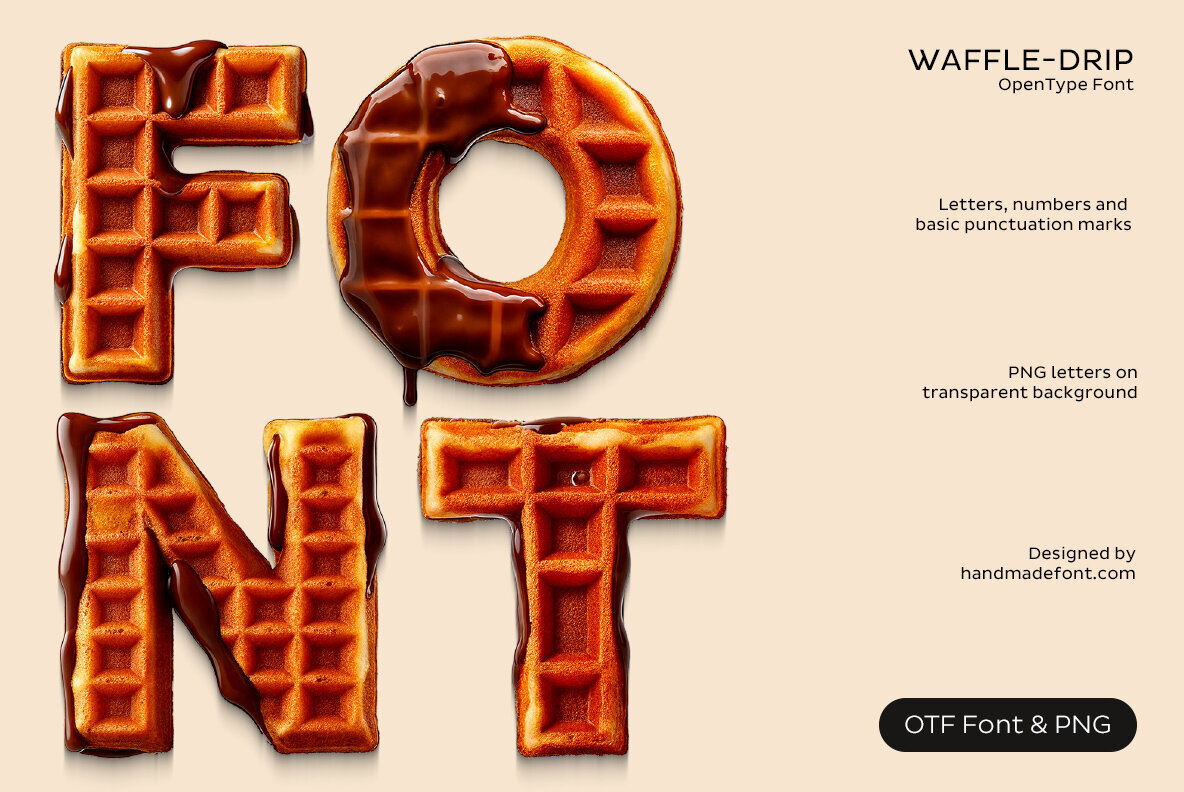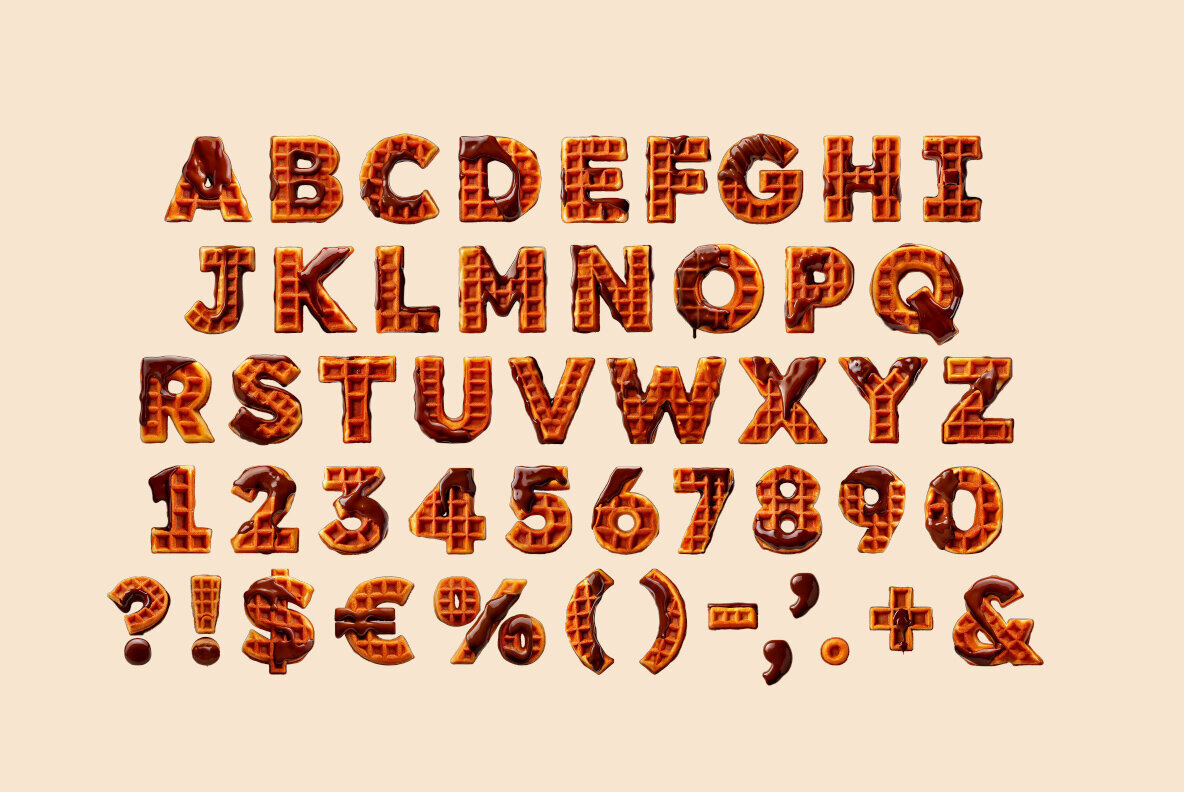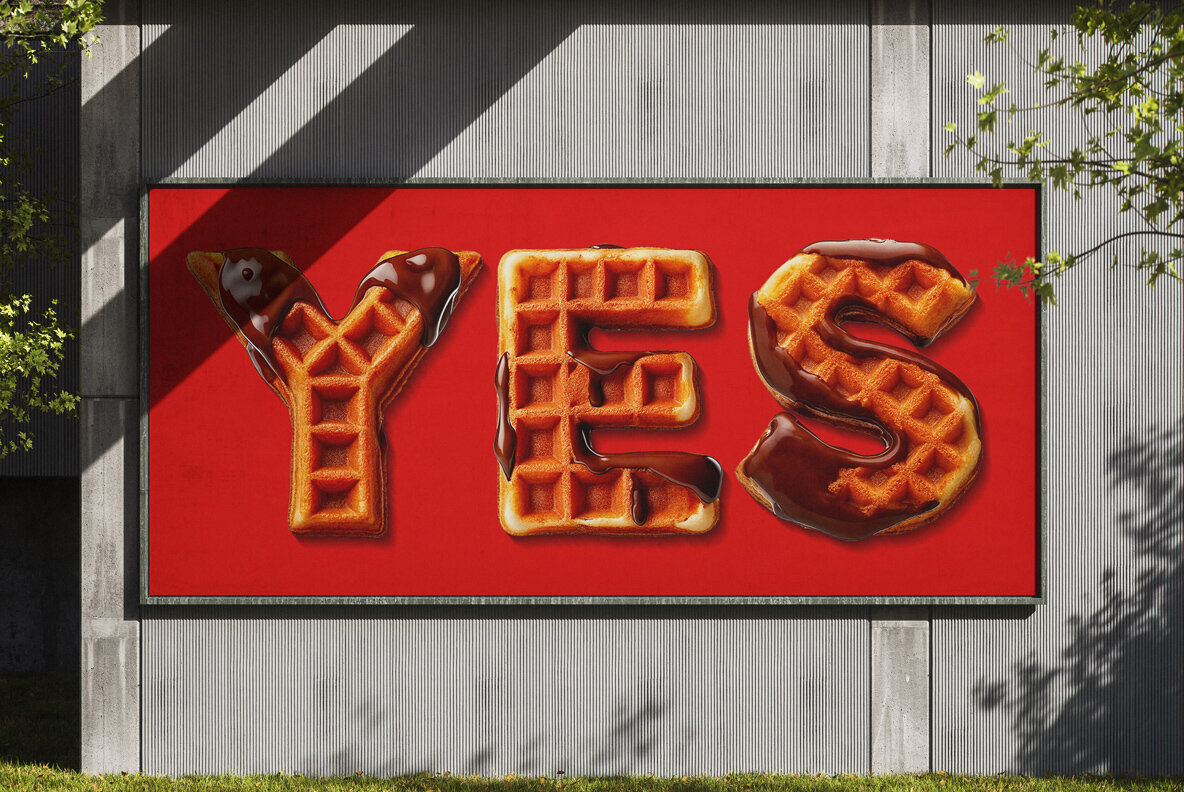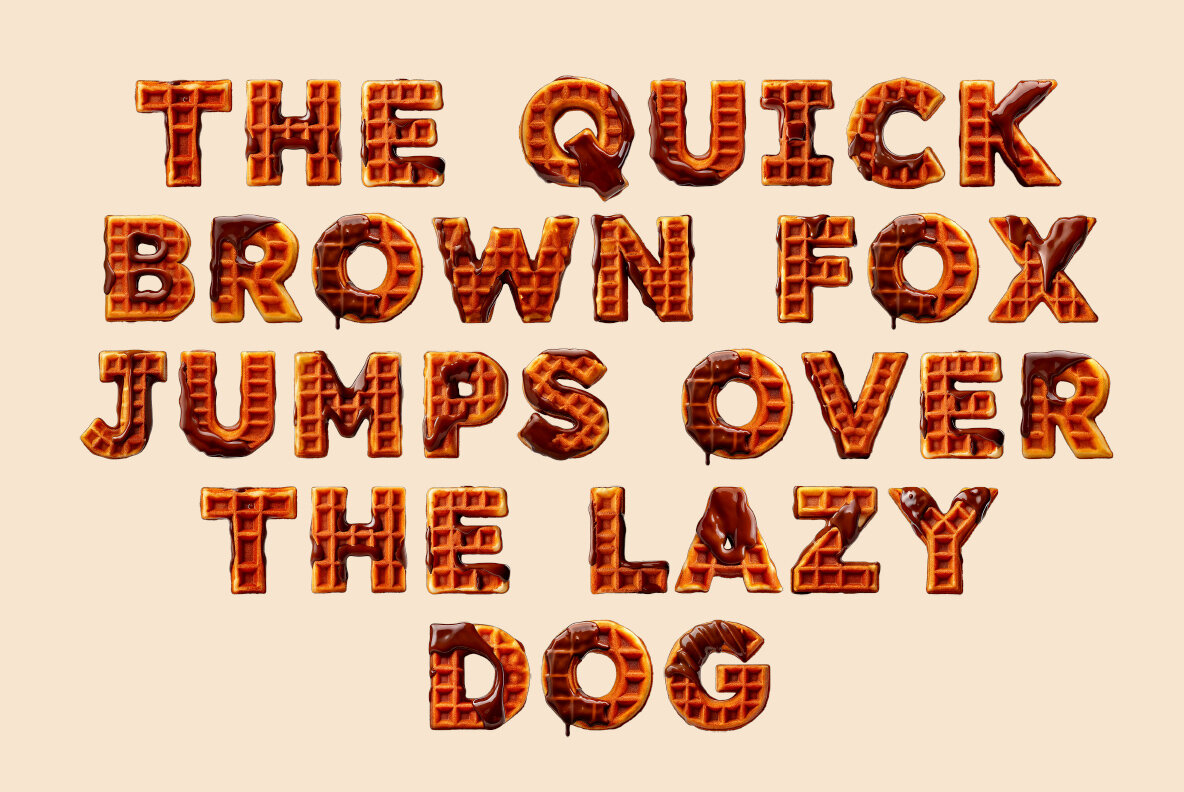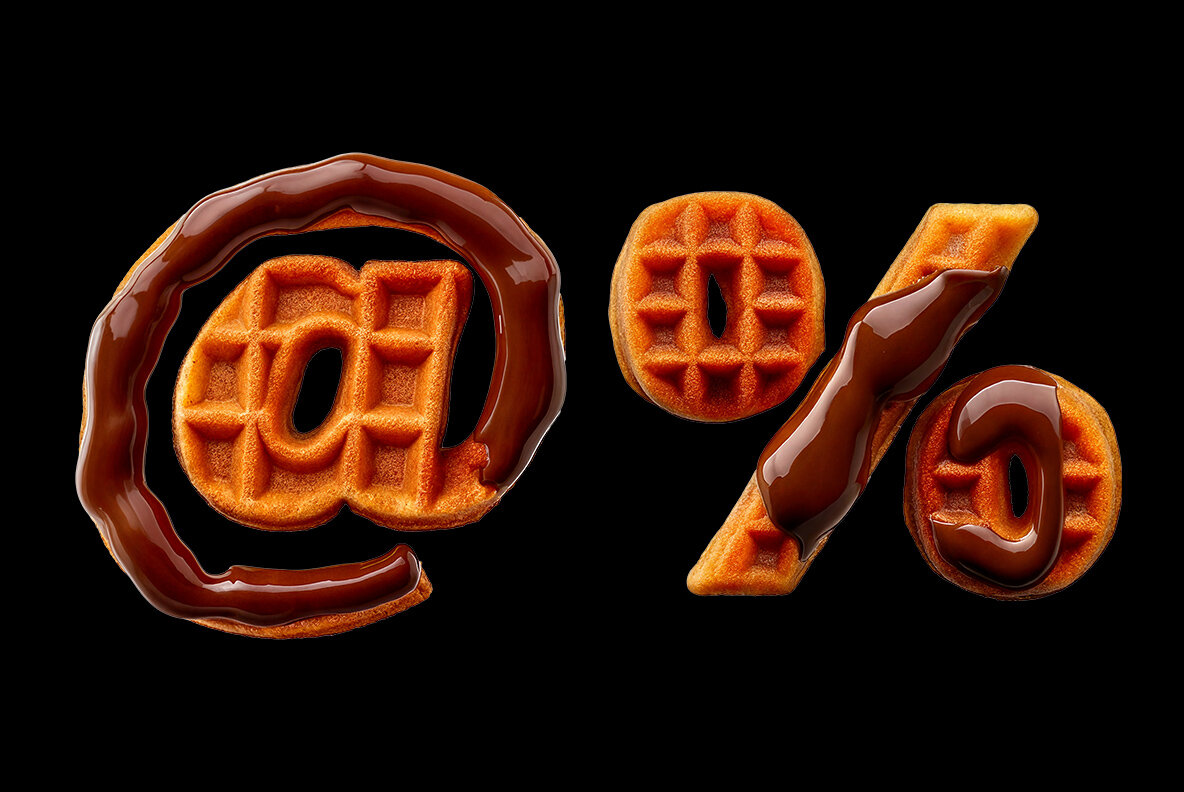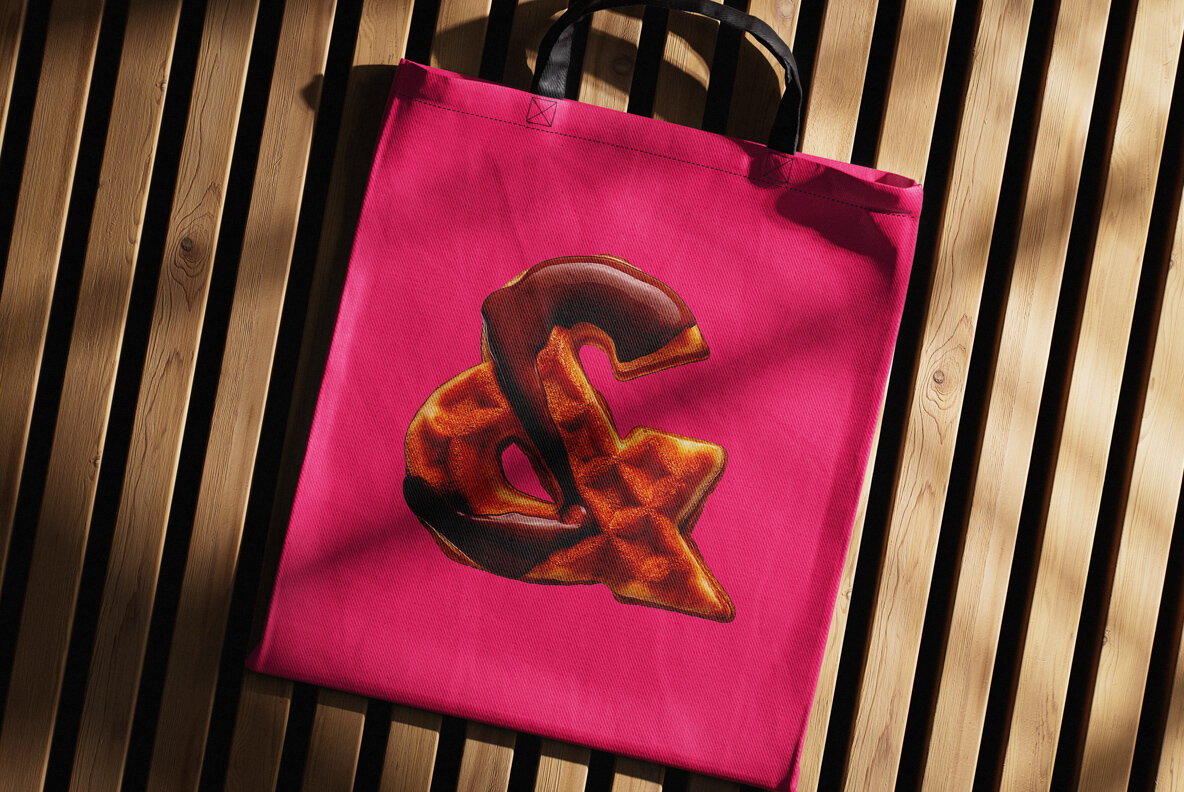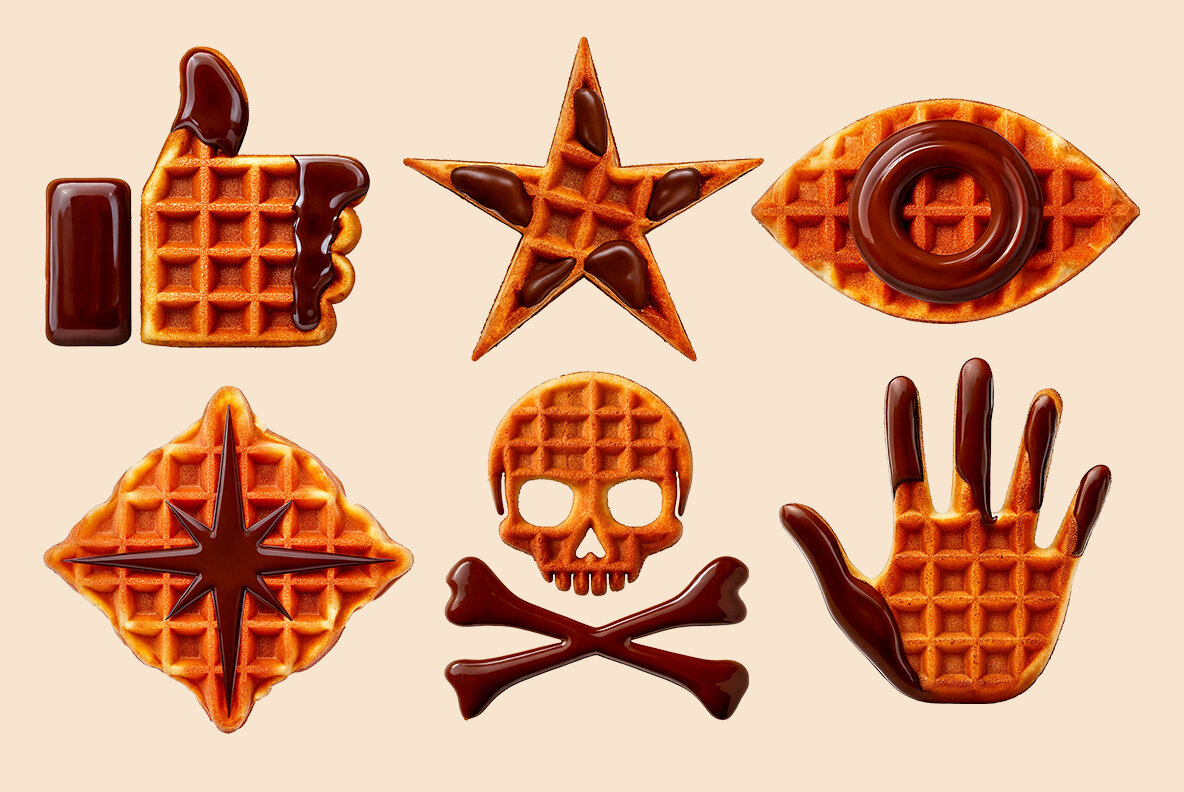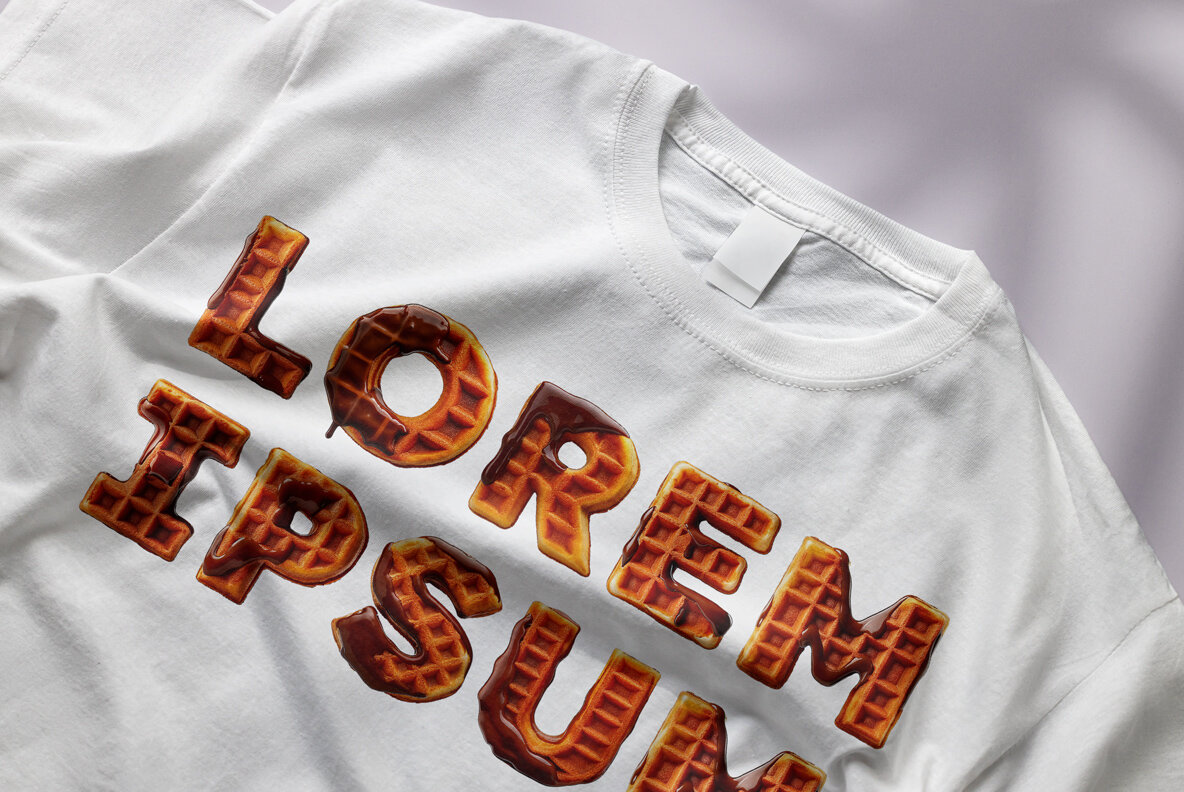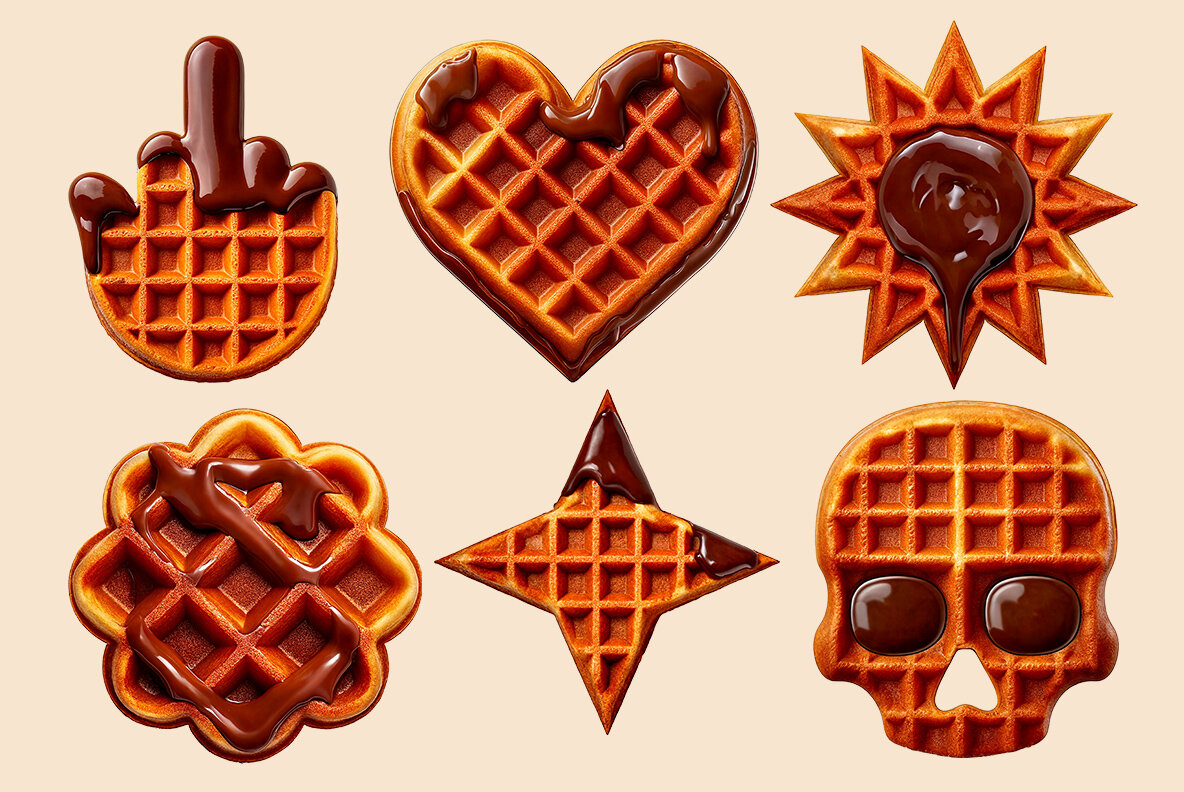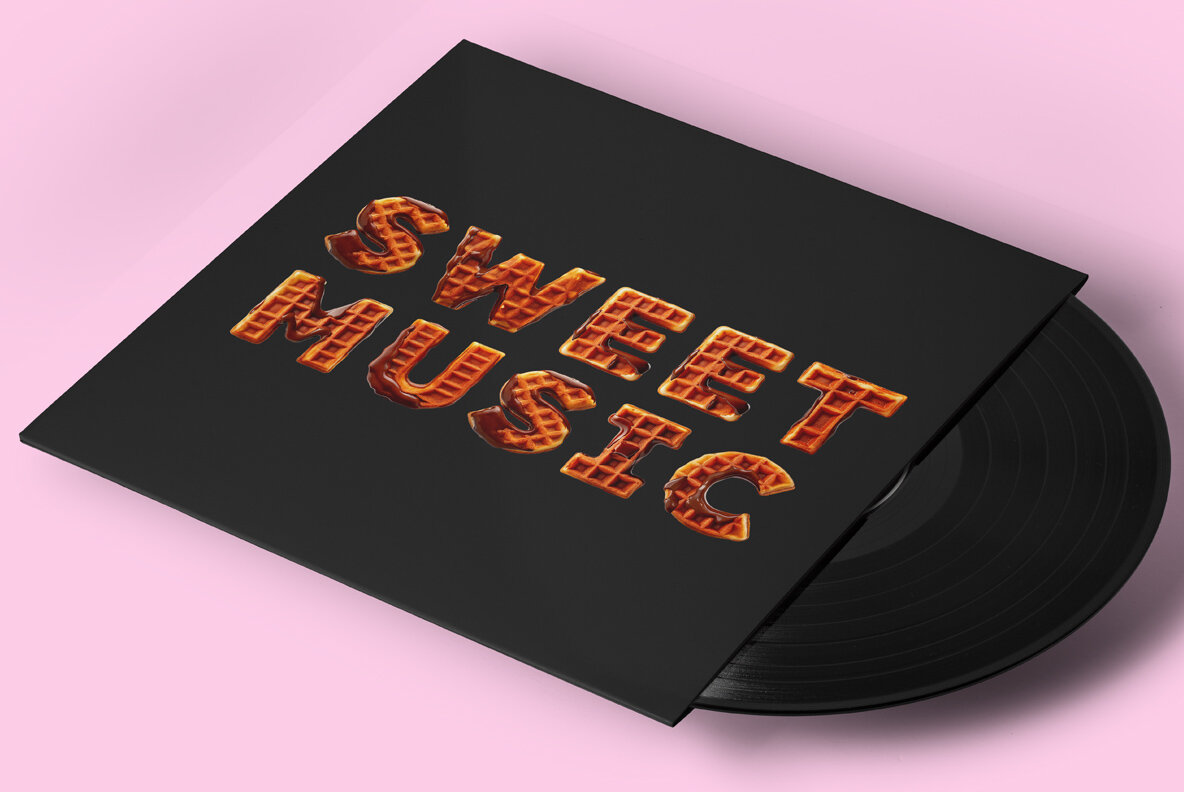
Introducing the Waffle Drip Font — a delightful blend of crispy waffles and sumptuous chocolate drips, creating a unique and appetizing typeface. Each character looks as though it's been freshly carved from a waffle iron, offering a golden texture complemented by rich chocolate streams. This playful font is perfect for bakeries, dessert shops, café branding, or any food-themed projects, adding charm and sweetness wherever it appears. Whether you're crafting menus, designing packaging, or creating engaging social media content, Waffle Drip offers an irresistibly delicious touch. Please note that while extended punctuation and language support are not included in the font files, all punctuation characters and accents are provided as individual PNG files.Waffle Drip SVG